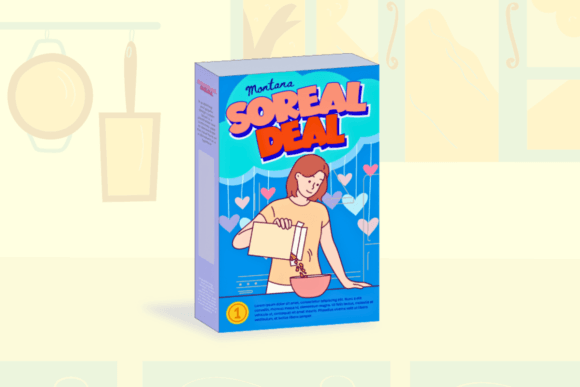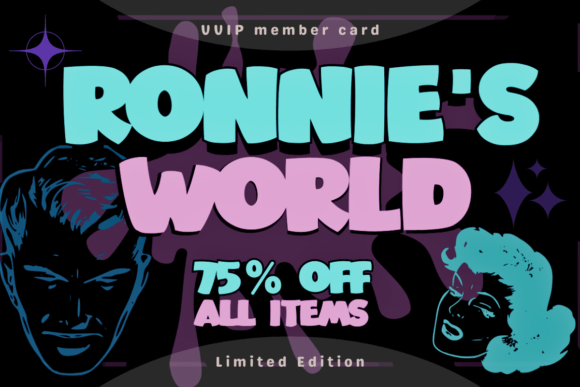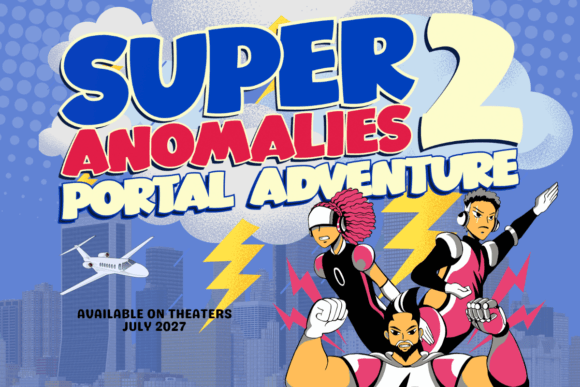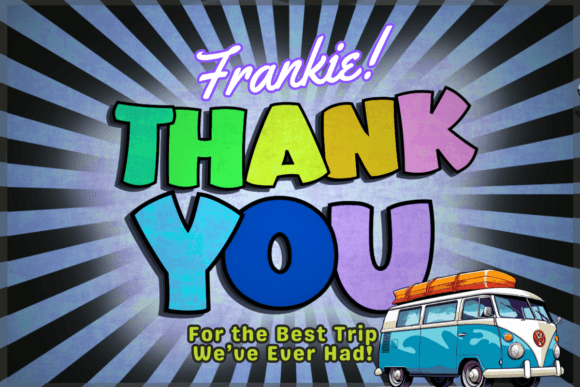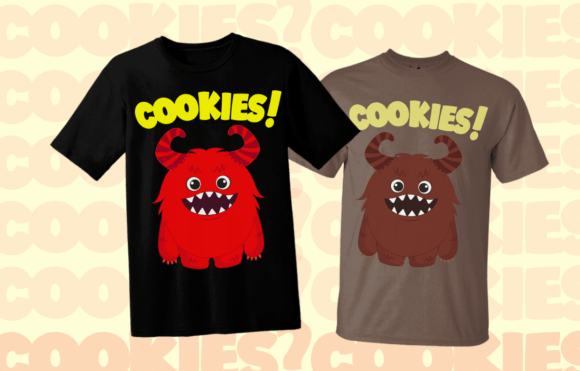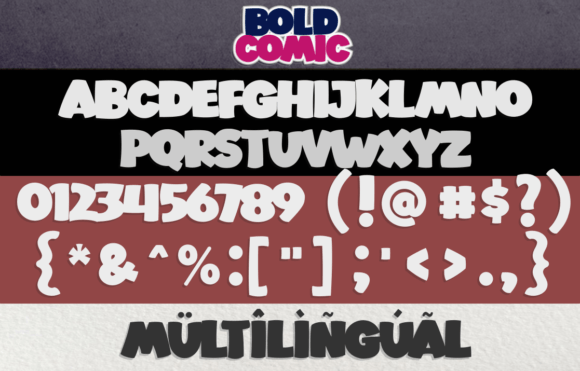
Introducing Bold Comic Font: Elevate Your Designs with a Unique Comic Style
Are you tired of using the same old fonts in your designs? Do you want to add a touch of excitement and personality to your creative projects? Look no further than Bold Comic Font, a bold and unique comic style display font that’s sure to make your designs stand out. In this article, we’ll explore the features and benefits of Bold Comic Font, and show you how to use it to take your designs to the next level.
What is Bold Comic Font?
Bold Comic Font is a bold and eye-catching comic style display font that’s perfect for designers and crafters who want to add a touch of fun and personality to their designs. With its strong, confident characters and unique comic book-inspired style, Bold Comic Font is sure to grab attention and make your designs stand out.
Key Features of Bold Comic Font
- Bold and eye-catching: Bold Comic Font is a bold and attention-grabbing font that’s perfect for headlines, titles, and other display text.
- Unique comic style: With its comic book-inspired style, Bold Comic Font adds a touch of fun and personality to your designs.
- Strong character: The font’s strong, confident characters make it perfect for use in a variety of design applications, from posters and flyers to logos and branding.
- Easy to read: Despite its bold style, Bold Comic Font is easy to read, making it perfect for use in body text as well as display text.
Benefits of Using Bold Comic Font
So why should you use Bold Comic Font in your designs? Here are just a few benefits of using this amazing font:
- Adds personality: Bold Comic Font adds a touch of fun and personality to your designs, making them more engaging and memorable.
- Grabs attention: The font’s bold, eye-catching style is sure to grab attention and draw viewers in.
- Versatile: Bold Comic Font can be used in a variety of design applications, from posters and flyers to logos and branding.
How to Use Bold Comic Font
So how can you use Bold Comic Font in your designs? Here are a few ideas to get you started:
- Posters and flyers: Use Bold Comic Font to create eye-catching headlines and titles for your posters and flyers.
- Logos and branding: Use the font to create bold, memorable logos and branding for your business or organization.
- Social media graphics: Use Bold Comic Font to add a touch of personality to your social media graphics and make them stand out.
- Comic books and graphic novels: Use the font to create bold, eye-catching text for your comic books and graphic novels.
Tips and Tricks for Using Bold Comic Font
Here are a few tips and tricks for using Bold Comic Font in your designs:
- Use it sparingly: While Bold Comic Font is bold and eye-catching, it can be overwhelming if used too much. Use it sparingly to add emphasis and draw attention to specific parts of your design.
- Pair it with other fonts: Bold Comic Font pairs well with a variety of other fonts, including serif and sans-serif fonts. Experiment with different pairings to find the one that works best for your design.
- Experiment with colors: Bold Comic Font looks great in a variety of colors, from bright and bold to subtle and muted. Experiment with different colors to find the one that works best for your design.
Bold Comic Font is a bold and unique comic style display font that’s perfect for designers and crafters who want to add a touch of fun and personality to their designs. With its strong, confident characters and eye-catching style, Bold Comic Font is sure to make your designs stand out. Whether you’re creating posters and flyers, logos and branding, or social media graphics, Bold Comic Font is a great choice. So why wait? Download Bold Comic Font today and start taking your designs to the next level!